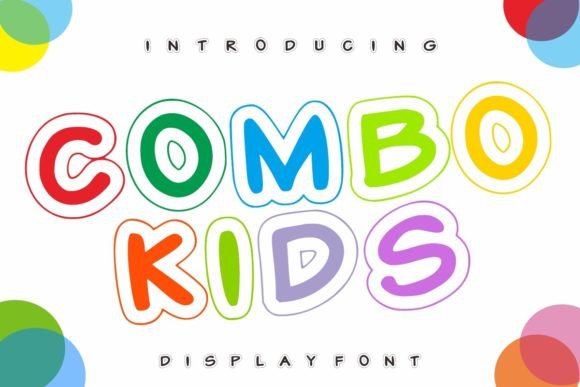
Introducing Combo Kids Font - the ultimate choice for all your creative graphic design needs! Crafted by the talented Infinity art Studio, this font is a delightful blend of playfulness and boldness that will instantly captivate your imagination.
With its chunky and rounded letters, Combo Kids Font exudes a friendly and approachable vibe, making it the perfect companion for all your whimsical and fun projects. Whether you're working on children's books, toys, or any design that requires a touch of childlike innocence, this font is guaranteed to elevate your creations to new heights.
Embrace the endless possibilities that Combo Kids Font brings to the table. Let your imagination run wild as you transform ordinary designs into extraordinary works of art. Its unique display font family adds a touch of magic to any project, making it stand out from the crowd.
But what truly sets Combo Kids Font apart is its ability to evoke emotions. As you browse through the collection, you'll find yourself transported to a world of joy, laughter, and boundless creativity. The font's captivating charm effortlessly draws you in, leaving you with a sense of wonder and excitement.
Unlock your inner child and let Combo Kids Font be your guide. Dive into a world where imagination knows no bounds, and watch as your designs come to life with every stroke of this remarkable font. Whether you're a seasoned graphic designer or just starting your creative journey, Combo Kids Font is your secret weapon to make your projects truly unforgettable.